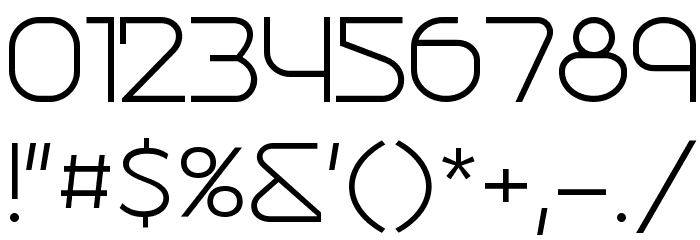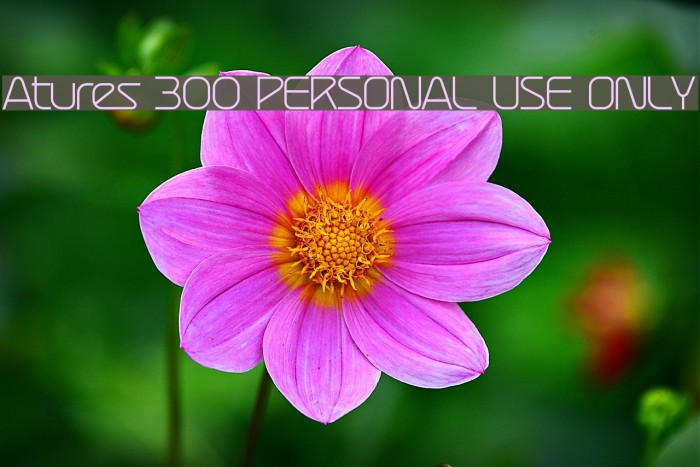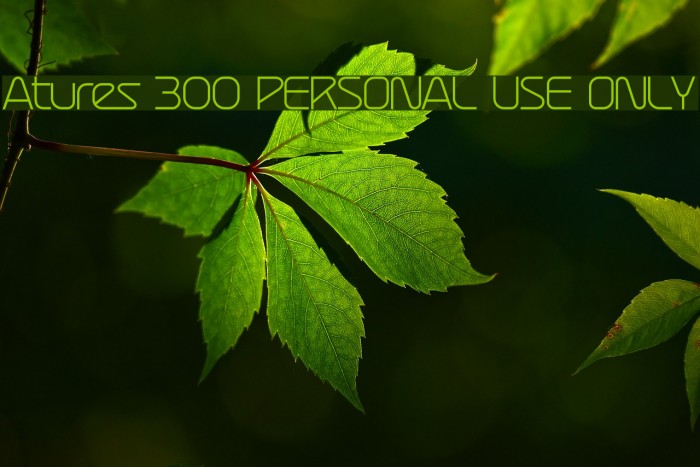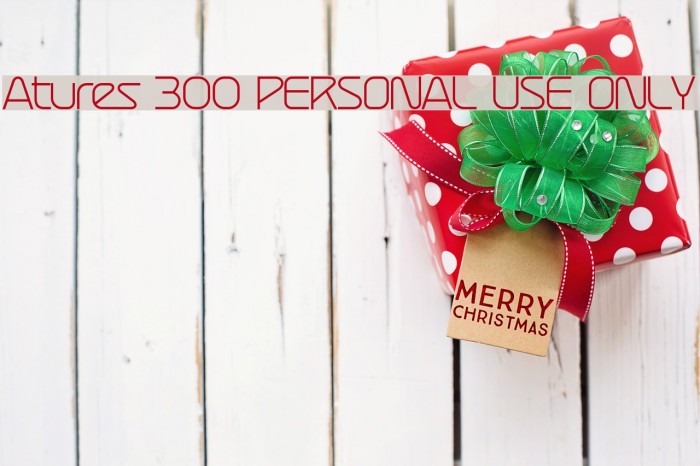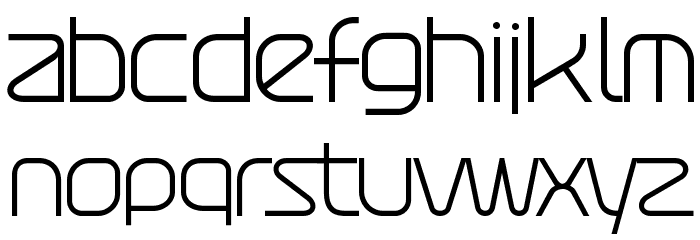
Atures 300 PERSONAL USE ONLY Font
Atures 300 PERSONAL USE ONLY Description
This font features a modern, geometric design with clean lines and a minimalist aesthetic. The characters are constructed with uniform stroke widths, giving it a sleek and contemporary look. The uppercase letters are distinct with rounded edges and open counters, while the lowercase letters maintain a consistent style with a slightly more compact form. The numerals are clear and easy to read, matching the overall geometric theme. Special characters are well-integrated, maintaining the font's cohesive design. This font is ideal for projects that require a modern and futuristic feel.
A modern, geometric font with clean lines and a minimalist aesthetic from Uncategorized fonts.
- Proposed Projects: Ideal for branding, digital interfaces, modern posters, and tech-related projects.
- Use Case: Headlines, Logos, Digital Interfaces